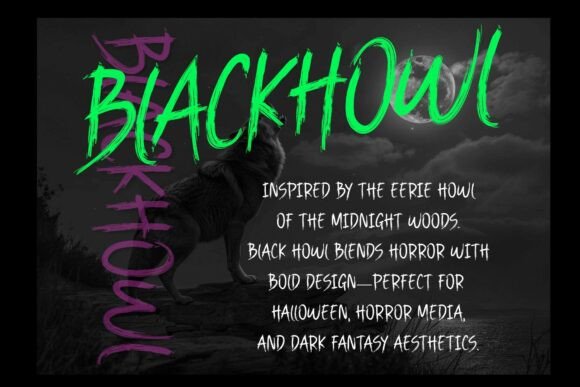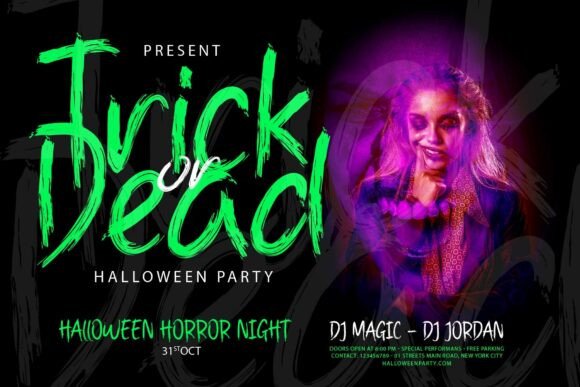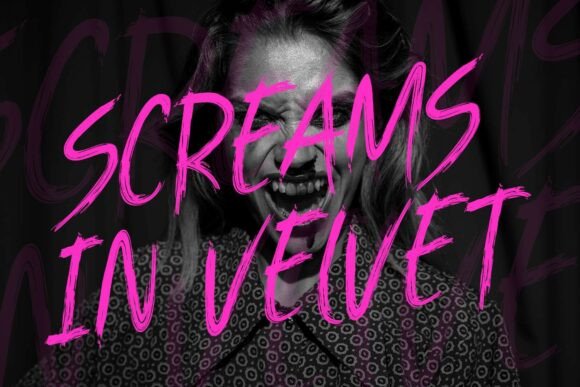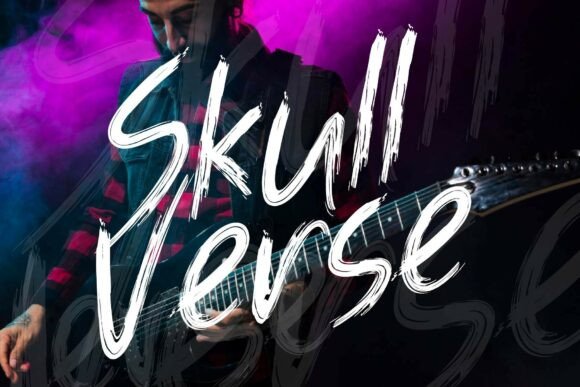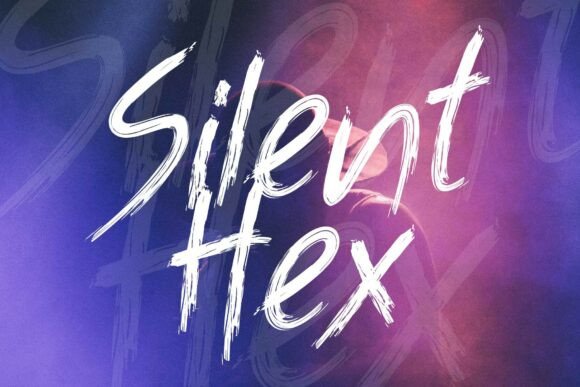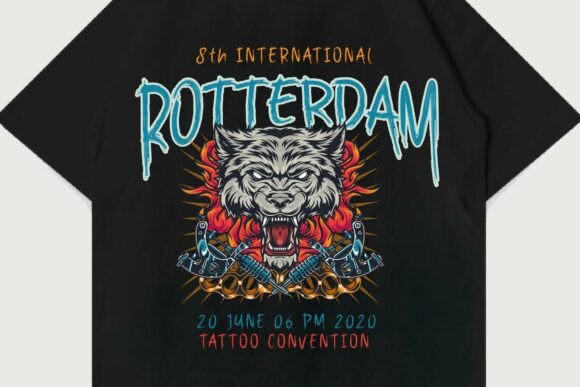
Unleashing the Haunting Charm of Black Howl Font
As a designer, I’ve had my fair share of late nights, scouring the depths of font libraries, searching for that perfect typeface to bring my project to life. But one night, as I was working on a dark fantasy-themed project, I stumbled upon a font that sent shivers down my spine – literally. It was as if the characters on my screen began to howl, beckoning me to explore their haunting world. That font was Black Howl, and I’m excited to share its captivating allure with you.
A Personal Encounter with Black Howl
I was working on a Halloween-themed project, and my client requested a font that would evoke the eerie and mystical atmosphere of the spooky season. I had tried several fonts, but none seemed to capture the essence of the dark fantasy world. That’s when I stumbled upon Black Howl. Its raw intensity and bold design elements immediately caught my attention, and I knew I had found the perfect fit.
An Honest Review of Black Howl Font
So, what makes Black Howl stand out from the rest? Here are some of the things I love about this font:
• ✨ Raw Intensity: Black Howl exudes a sense of boldness and fearlessness, making it perfect for projects that require a strong, attention-grabbing presence.
• ✅ Dark Fantasy Aesthetic: The font’s design elements are deeply rooted in the dark fantasy world, making it an excellent choice for projects that require a touch of mystery and intrigue.
• 🔥 Versatility: Black Howl is not just limited to horror or Halloween-themed projects; it can be used in a variety of creative projects that require a bold, edgy look.
While Black Howl is an exceptional font, it’s not without its quirks. Here are a few things to keep in mind:
• ⚠️ Legibility: Some characters may be difficult to read at smaller font sizes, so it’s essential to test the font in your project before finalizing it.
• 🤔 Pairing: Black Howl is a bold font, so it’s crucial to pair it with a font that provides sufficient contrast to ensure readability.
The Backstory Behind Black Howl
The story behind Black Howl is shrouded in mystery, but it’s said that the font was inspired by the haunting howls of wolves echoing through the midnight woods. The designer, fueled by a passion for dark fantasy and horror, sought to capture the raw intensity of those howls in a font that would leave a lasting impression.
What type of projects is Black Howl best suited for? Black Howl is perfect for projects that require a bold, edgy look, such as horror-themed projects, dark fantasy stories, and Halloween-themed designs.
Is Black Howl a versatile font? Yes, Black Howl can be used in a variety of creative projects, from horror-themed designs to dark fantasy stories.
Black Howl is a captivating font that will add a touch of dark fantasy and horror to your projects. With its raw intensity and bold design elements, it’s sure to leave a lasting impression on your audience.